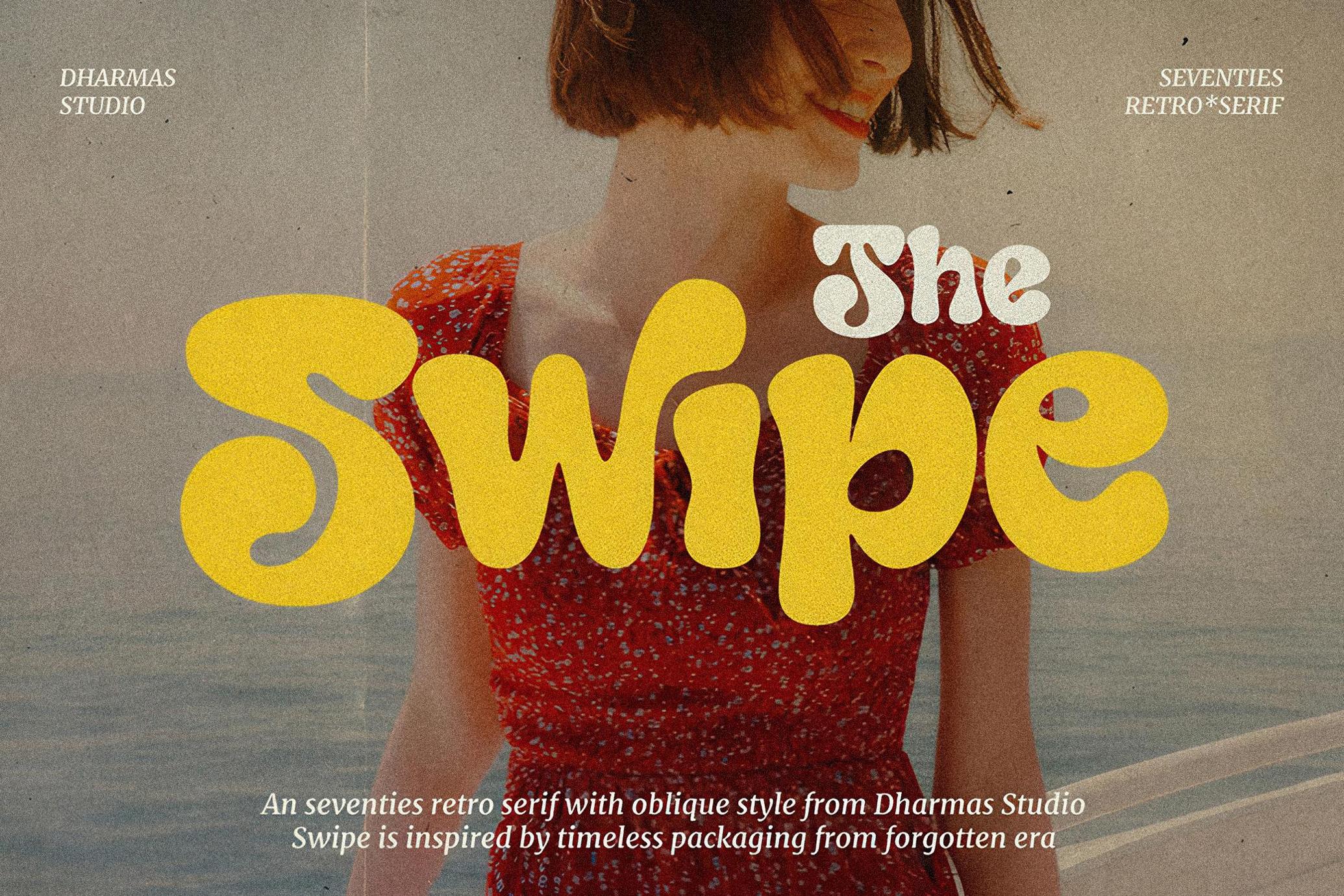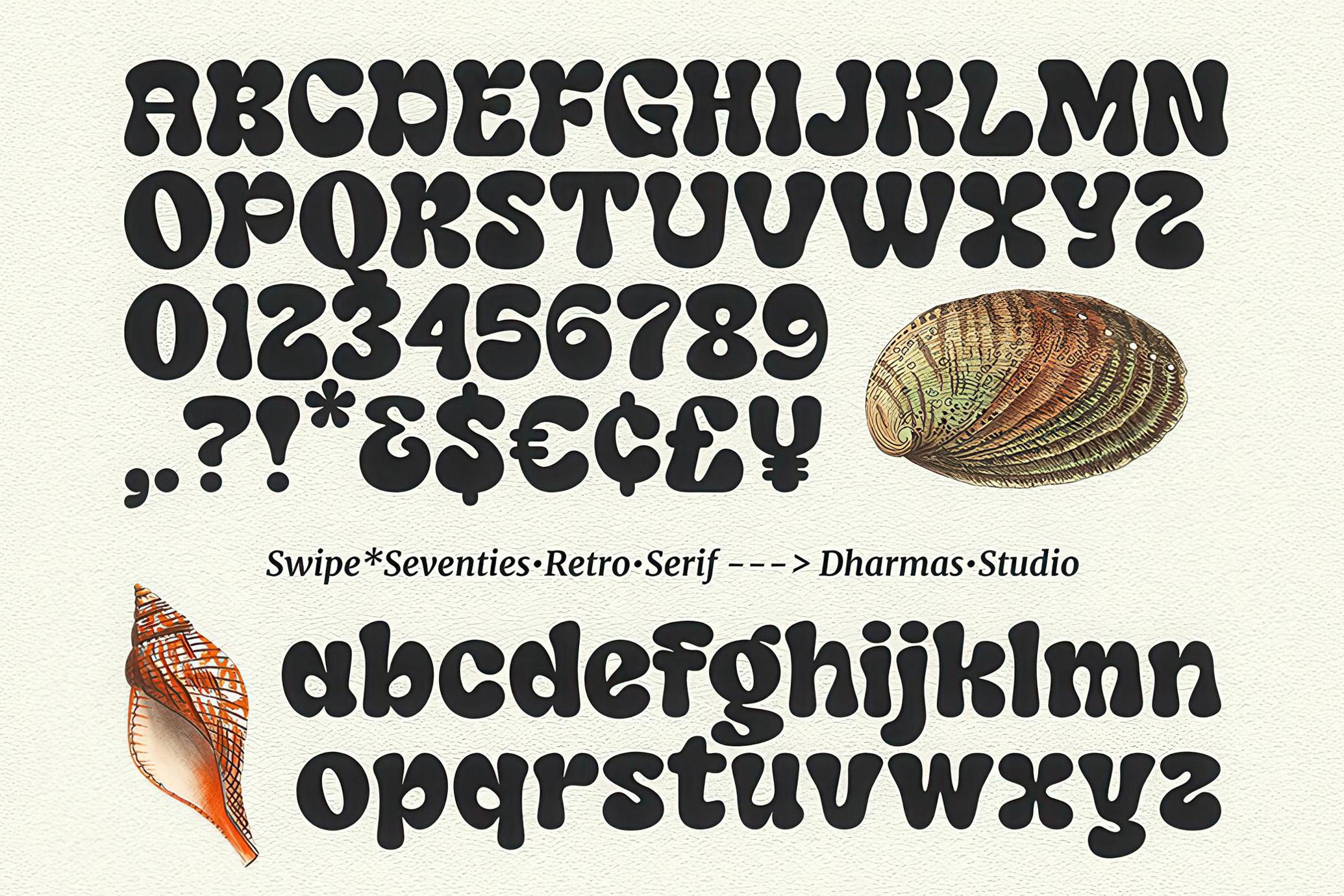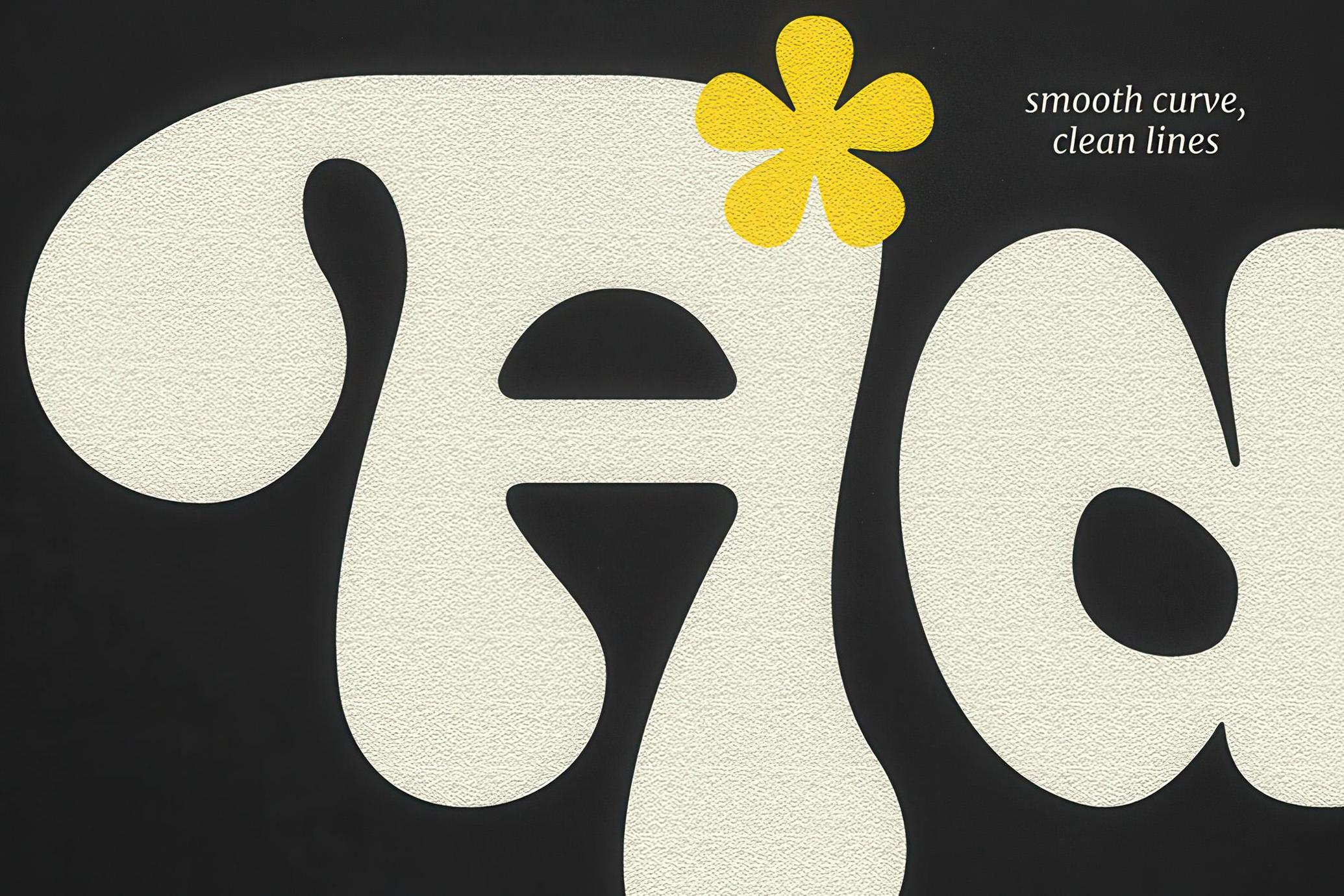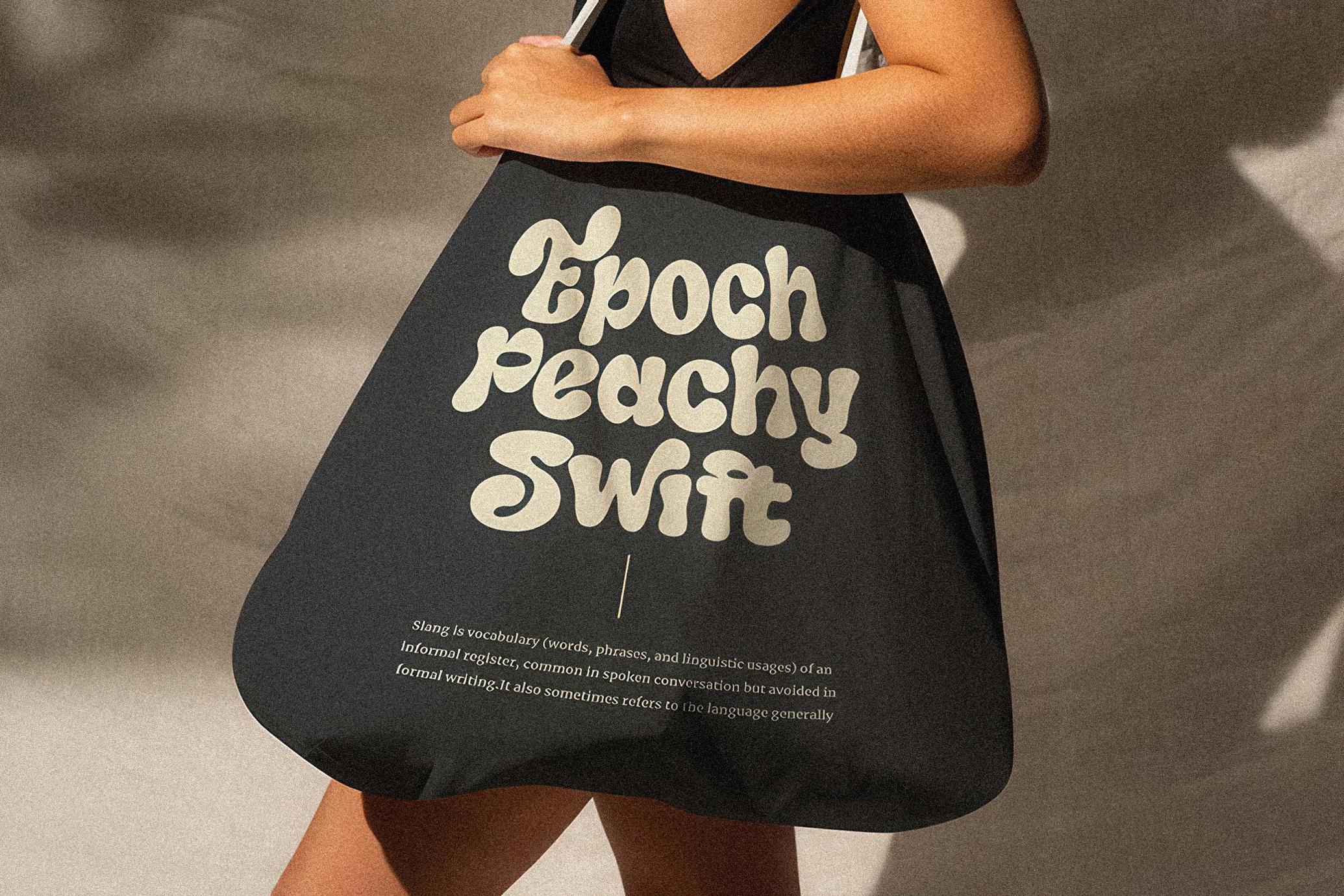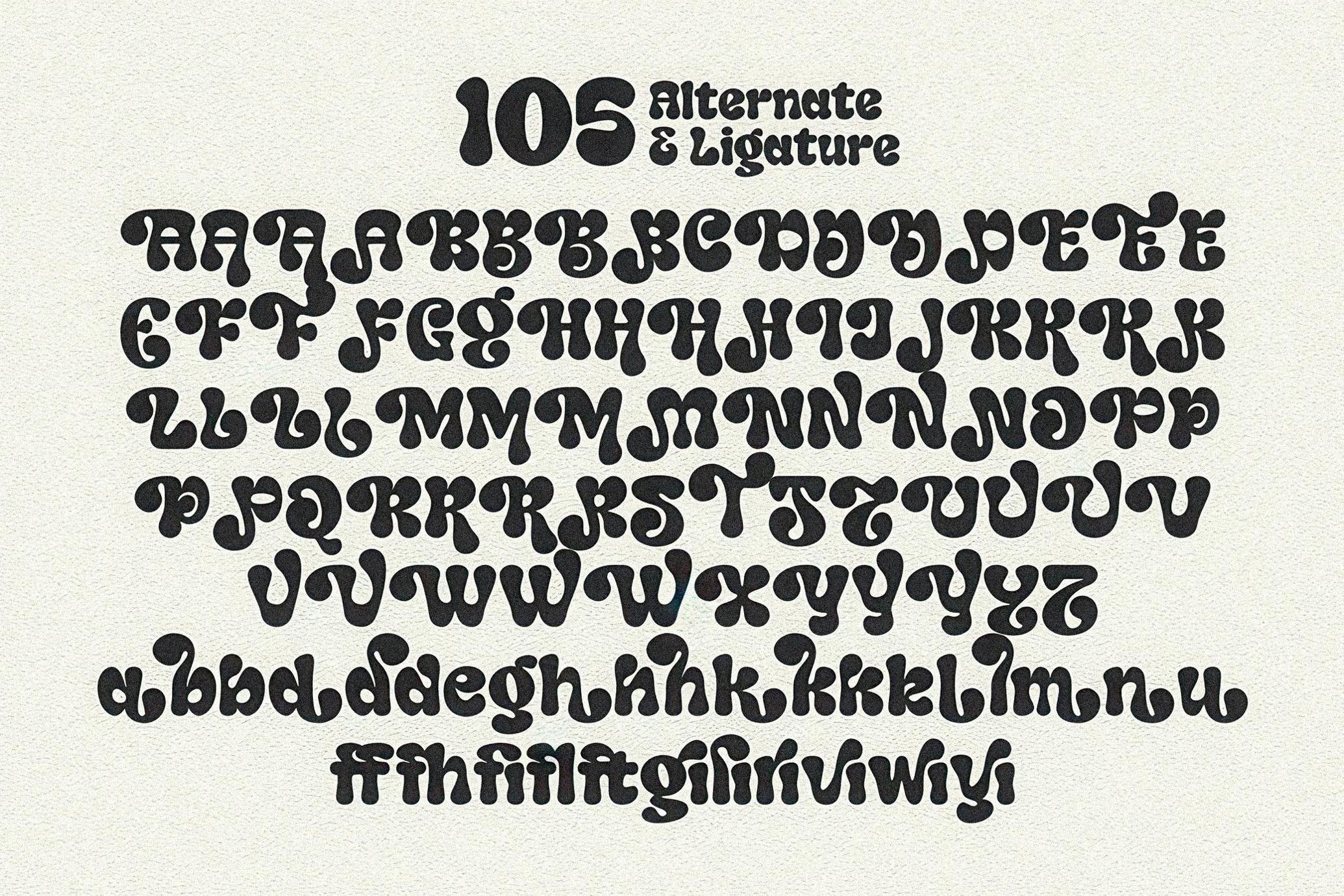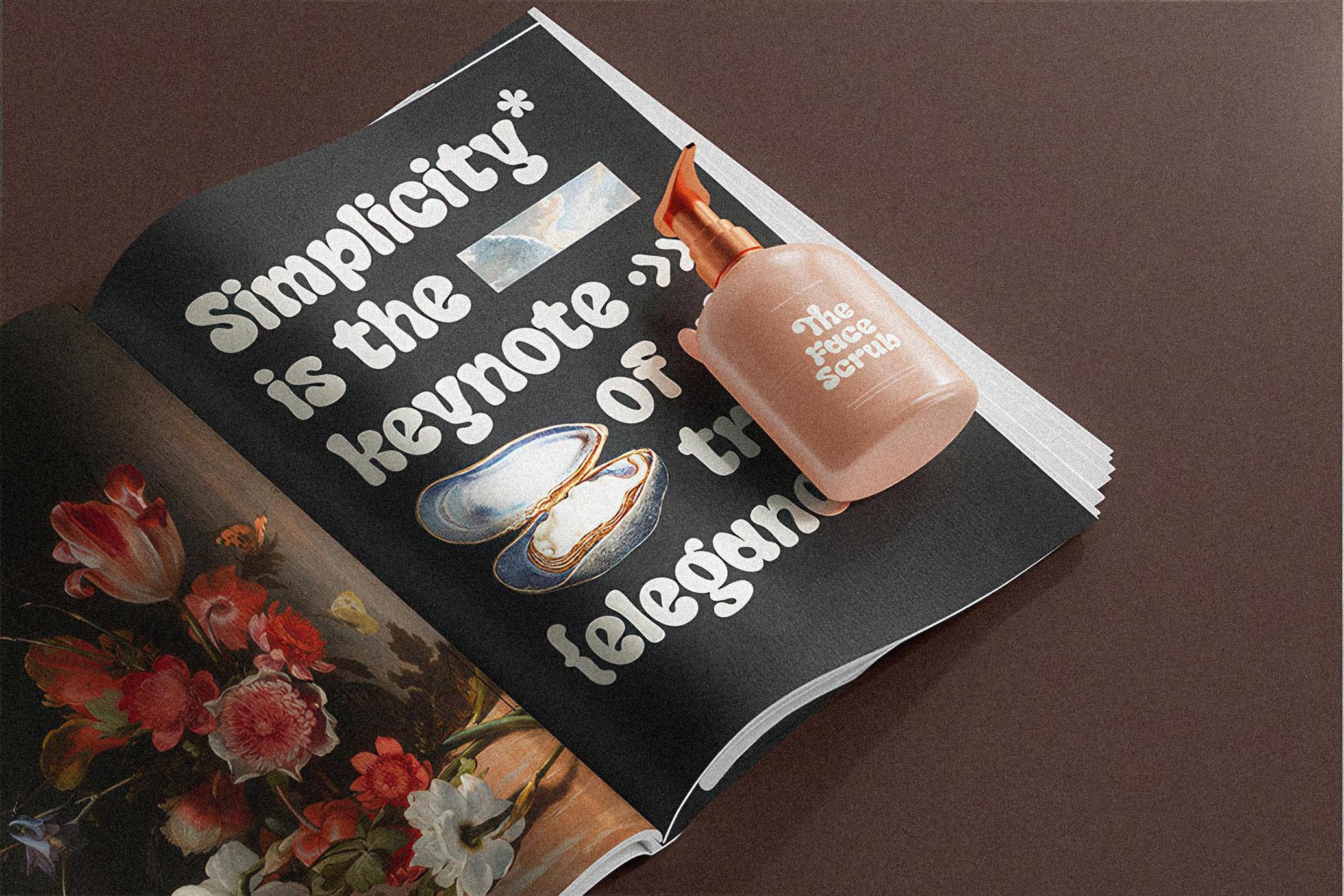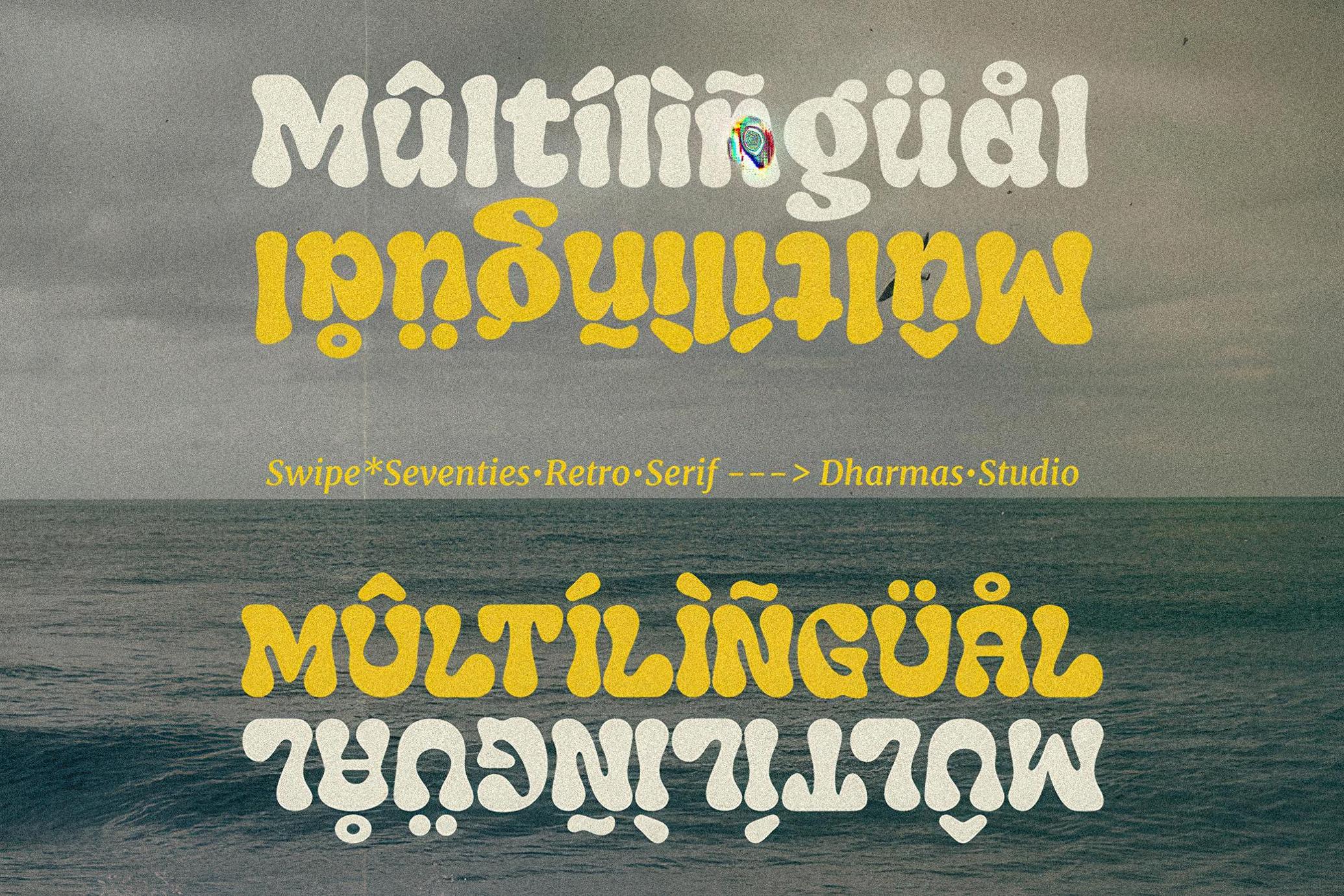
Swipe - Seventies Retro Typeface
Swipe - A seventies font that has both a retro and fun look. It comes with a smooth curve and soft bold with a regular and oblique style that will make your project more stunning with nostalgic feels.
Swipe includes 105 beautiful alternates and ligatures which makes 4 stylistic sets. Contains 2 styles regular and italic, this font is best used for headings, logotype, quotes, apparel design, posters, flyers, packaging, book cover, and many more.
• Has 105 beautiful alternates and ligatures
Super-versatile, have a scroll through all the previews to see how wide the range of uses that can be with Swipe, it's so limitless!